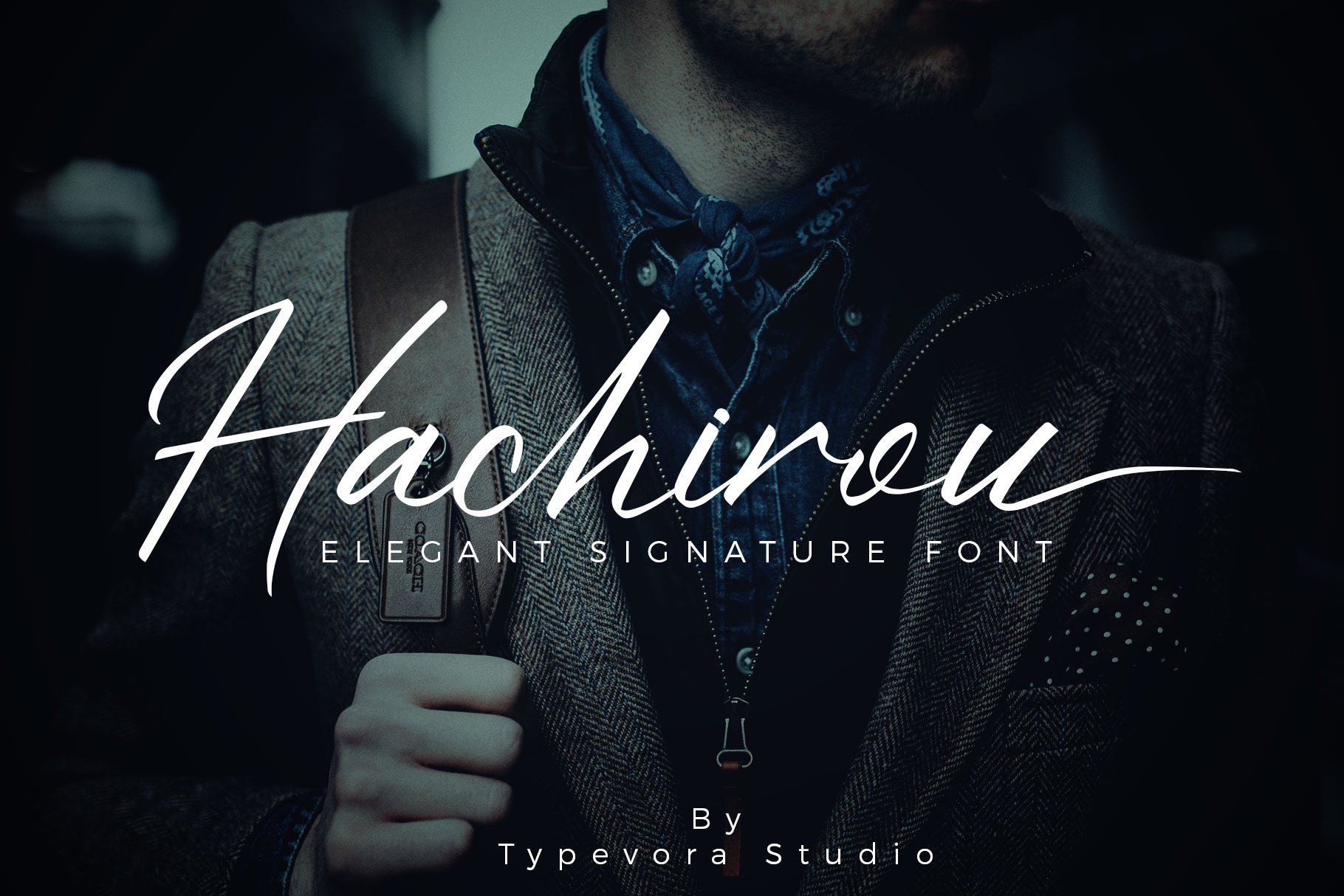
Hachirou - a signature and Elegant font perfect for branding, invitation, stationery, wedding designs, social media, advertisements, product packaging, product designs, label, photography, watermark, special events or anything.